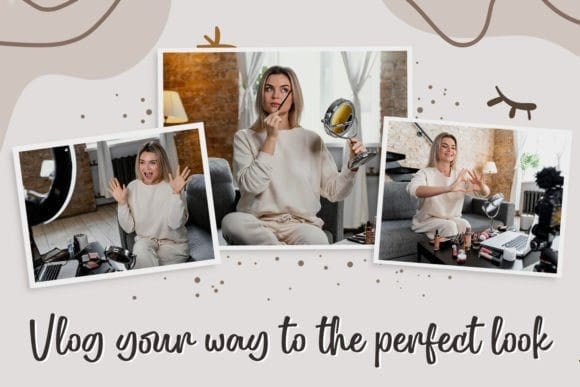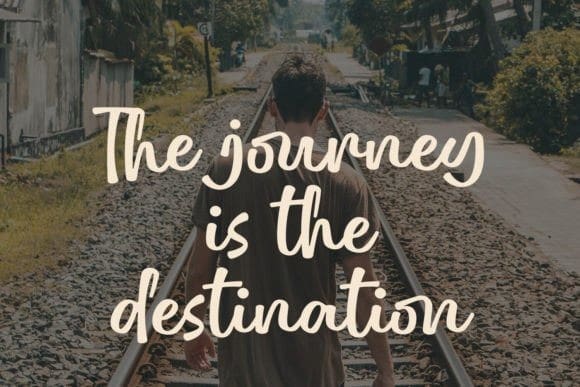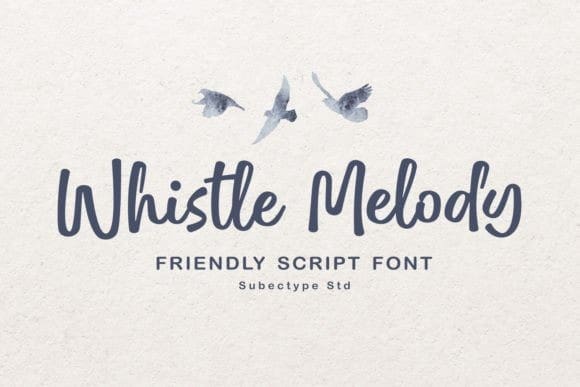
Whistle Melody Font
Whistle Melody Font is a chic handwritten script font that exudes elegance and sophistication. Its flowing strokes and delicate curves evoke a sense of grace and charm, perfect for adding a touch of luxury to invitations, branding, and editorial designs. This font embodies a harmonious blend of style and refinement.